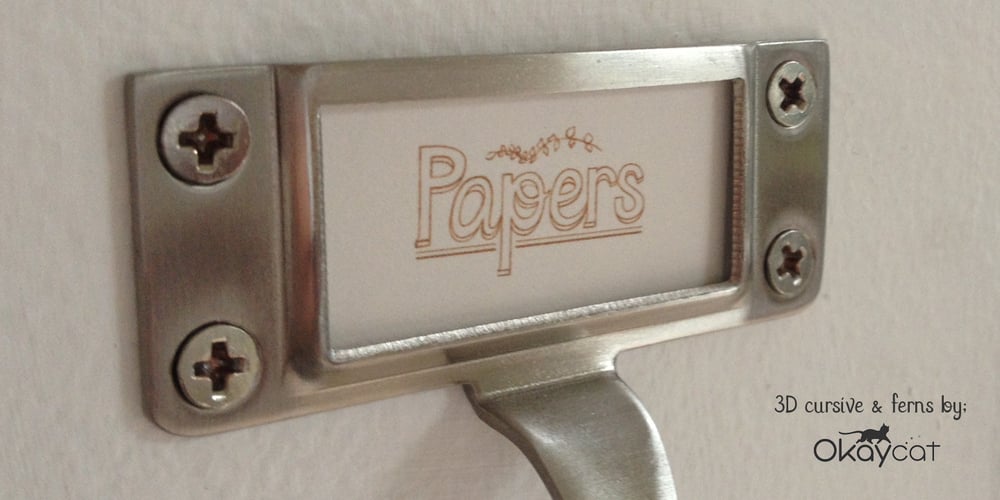
3D Cursive Font Family was designed by Natsuko Hayashida and published by Okaycat. 3D Cursive contains 3 styles and family package options. 3D Cursive is an extruded cursive family with multiple styles. The 3D Cursive font is extruded in delicate outline. 3D Cursive Stencil is an alternate style in bold black. 3D Cursive Simple provides a perfectly matching, yet non-extruded style. 3D Cursive is extended, containing West European diacritics & ligatures, making it suitable for multilingual environments & publications.